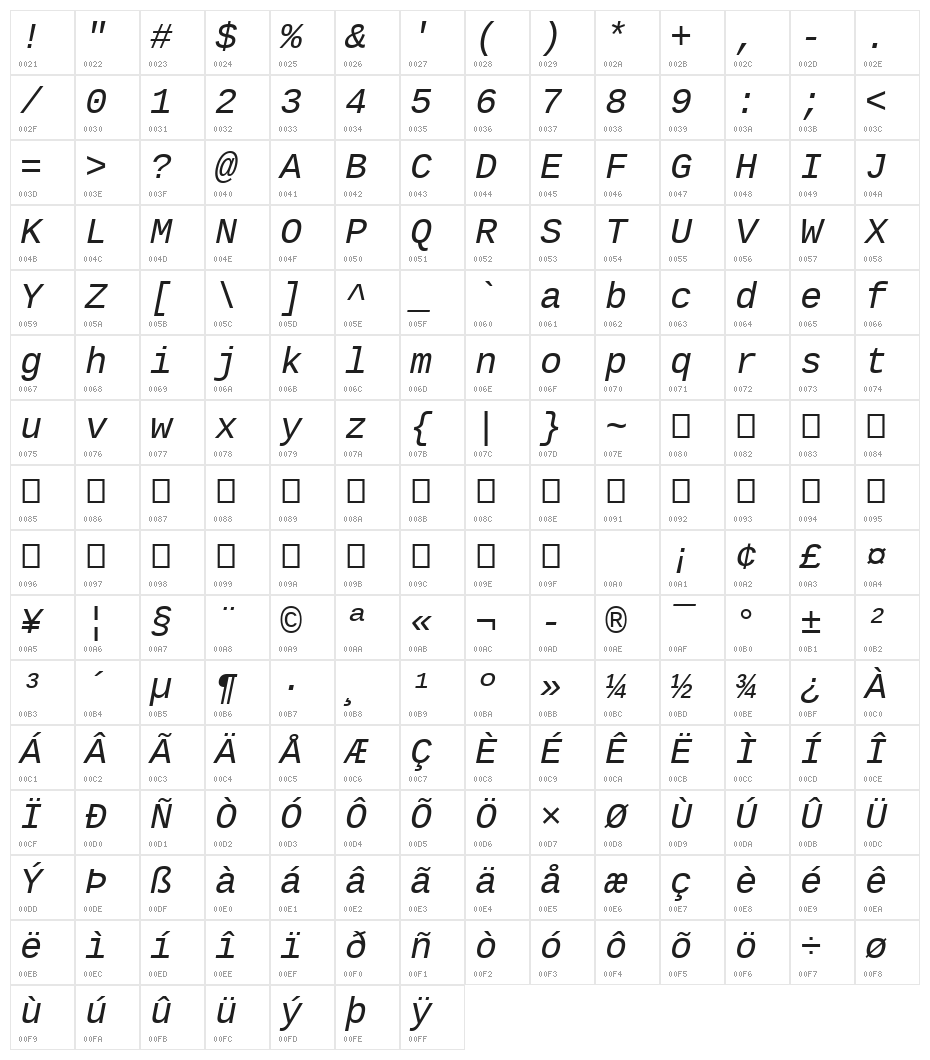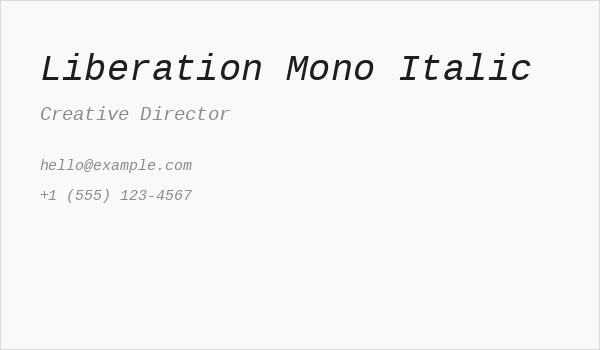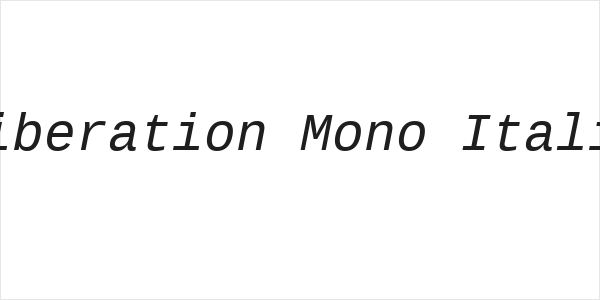
Liberation Mono Italic Font
Liberation Mono Italic Description
This font is a monospaced typeface with a clean and modern appearance. Each character is evenly spaced, providing a uniform look that is ideal for coding and tabular data. The italic style adds a subtle slant to the characters, giving it a dynamic and slightly informal feel. The strokes are consistent in width, offering a medium contrast that ensures readability across various sizes. The design is straightforward, with minimal embellishments, making it suitable for professional and technical applications.
| Use Case | Coding, Technical documentation, Tabular data |
| Proposed Projects | Ideal for coding environments, technical documentation, and any project requiring precise alignment of text. |